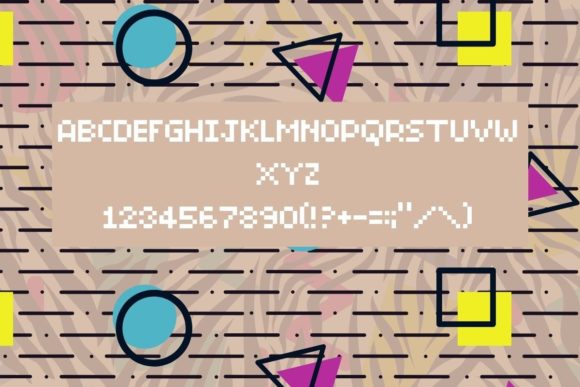
Time Travel in Typography: Introducing the BitMicro01 Font
Remember the thrill of discovering a rare game cartridge in the attic of your childhood home? The rush of nostalgia as you plugged it into your old console and relived memories of late nights spent exploring virtual worlds? For designers and retro gaming enthusiasts, that same excitement is now within reach with the release of the BitMicro01 Font.
This pixel-styled display font is a love letter to the early days of computing and gaming, when pixel art reigned supreme and simplicity was key. With its minimalistic and clear design, the BitMicro01 Font is a valuable addition to any designer’s collection. Whether you’re working on a retro-themed project or simply want to add a touch of nostalgia to your designs, this font is sure to transport you back in time.
BitMicro01 Font Key Features
- Font Family: BitMicro01 is a sans-serif font family designed for digital displays.
- Resolution: Designed for high-resolution displays, BitMicro01 maintains its clarity and legibility at resolutions up to 4K (3840 x 2160 pixels).
- Unique Characteristics: BitMicro01 features a distinctive micro-beveled edge design, providing a modern and sleek aesthetic that enhances digital readability.
Designer Review: BitMicro01 Font
Overall, I think BitMicro01 is a solid choice for digital projects. Here are some things that I appreciate about this font: ✨
- Unique aesthetic: The blend of modern and retro elements in BitMicro01 makes it stand out in a crowded font market.
- Legibility: The font is clear and easy to read, even at small sizes.
- Pixel-perfect: The font is designed specifically for digital use, which makes it perfect for pixel art, video games, and other digital projects.
- Limited character set: BitMicro01 only includes a basic set of characters, which may not be sufficient for more complex projects.
- Not suitable for print: The font is designed for digital use only and may not translate well to print materials.
- Lack of font sizes: The font only comes in a single size, which can make it difficult to use in projects that require multiple font sizes.
Overall, I think BitMicro01 is a great choice for digital projects that require a unique and legible font. However, it may not be the best choice for projects that require a wide range of font sizes or more complex character sets.
For best results, use the BitMicro01 font for headings and titles, as it is designed to be bold and eye-catching.
For best results, use the BitMicro01 font in combination with bold and italics to create visual interest.
For best results, use the BitMicro01 font for headings and titles, as it is designed to be bold and eye-catching.
The BitMicro01 font is ideal for:
- Technological and digital projects.
- Modern and futuristic designs.
- Headings and titles that need to stand out.
By following these guidelines, you can effectively use the BitMicro01 font in your designs and create visually appealing and engaging projects.
Alternatives to BitMicro01 Font for Designers
Monserrat Font is a sans-serif typeface designed by Julieta Ulanovsky. It’s a great alternative to BitMicro01 Font when you need a modern and urban feel in your designs. Montserrat Font is more geometric and has a cleaner design compared to BitMicro01 Font.
Use Montserrat Font when you want to give your designs a sleek and contemporary look, especially in digital products, apps, and websites.
Open Sans Font is a popular sans-serif typeface designed by Steve Matteson. It’s a great alternative to BitMicro01 Font when you need a clean and readable font for body text. Open Sans Font is more rounded and has a friendly feel compared to BitMicro01 Font.